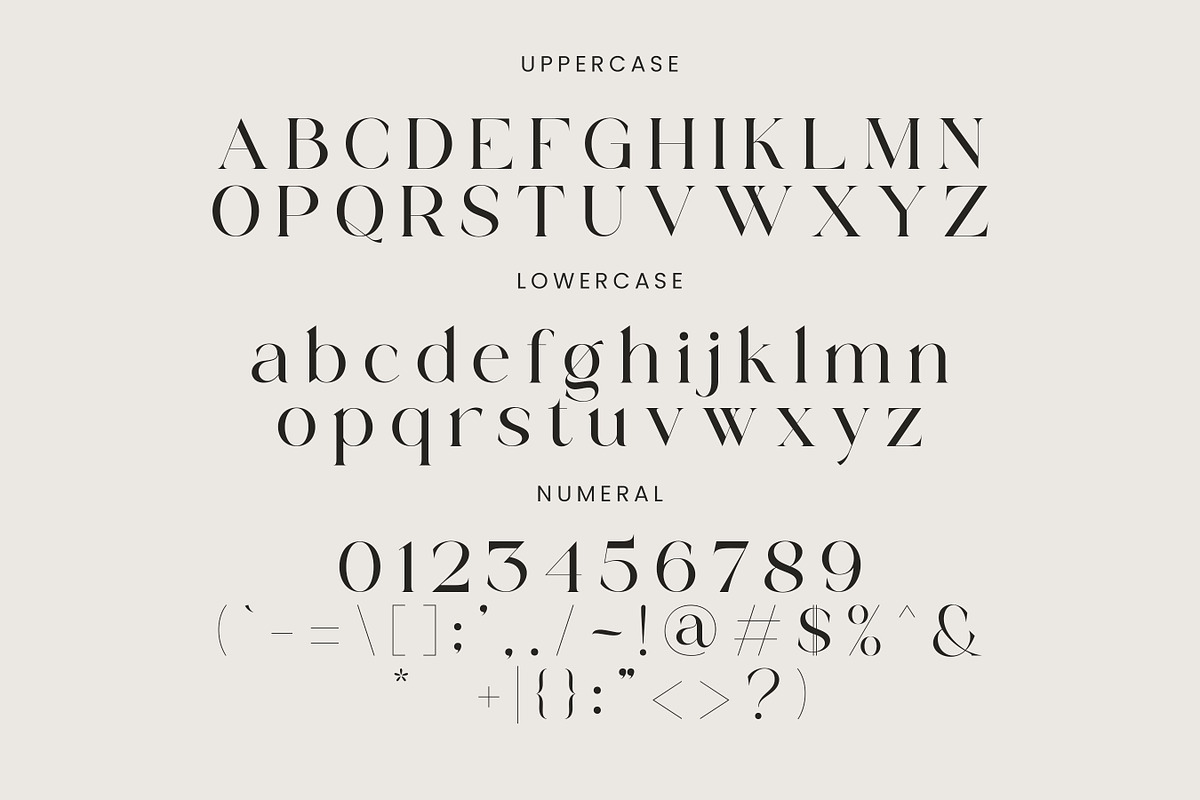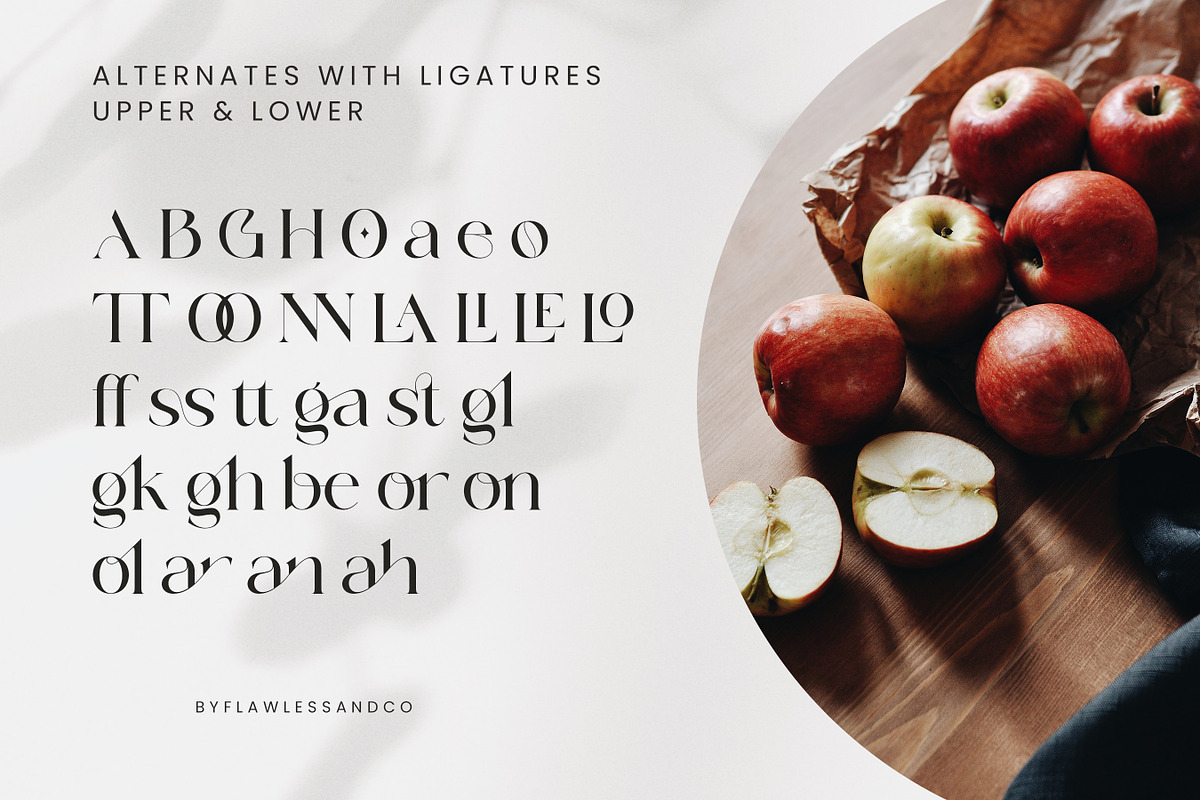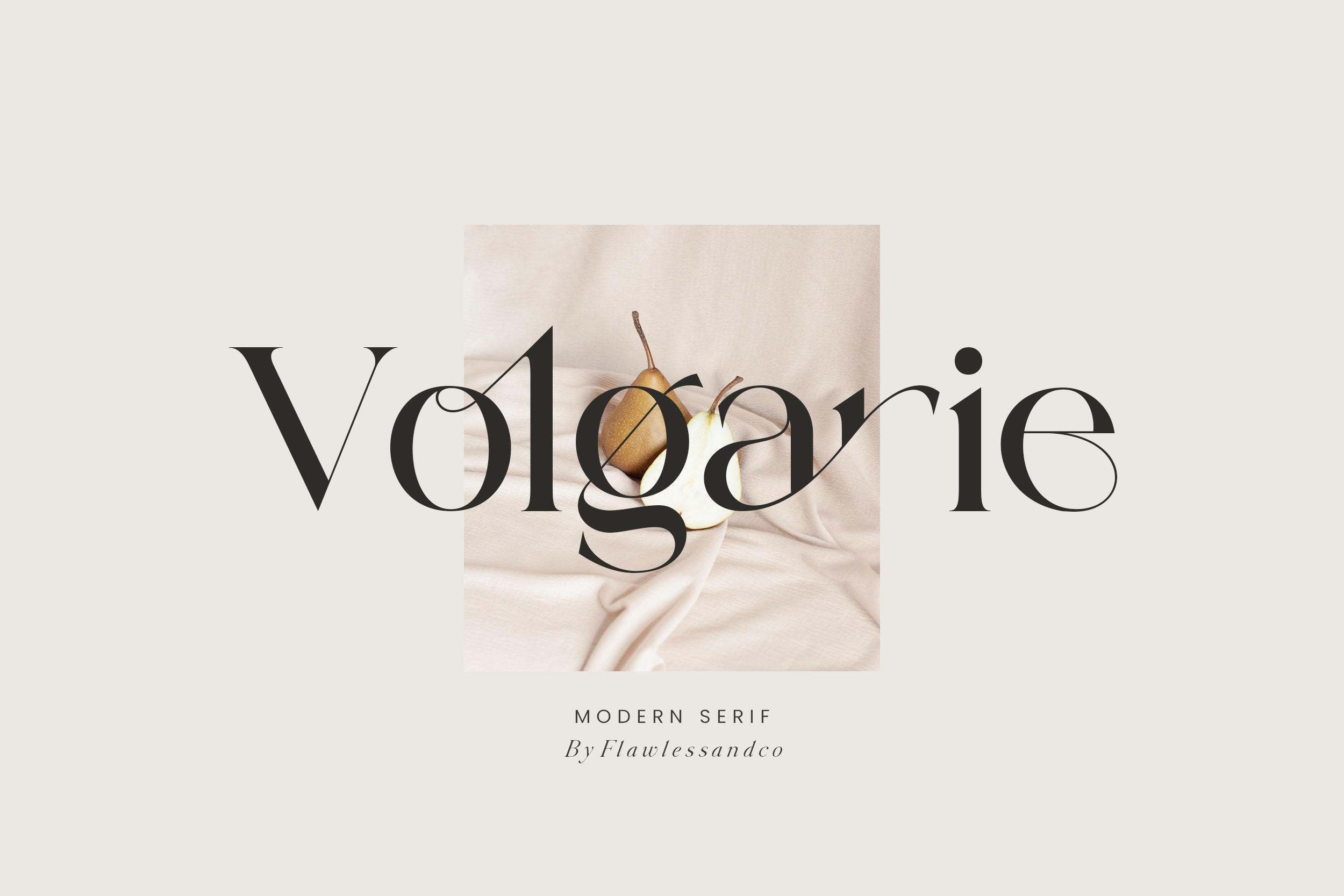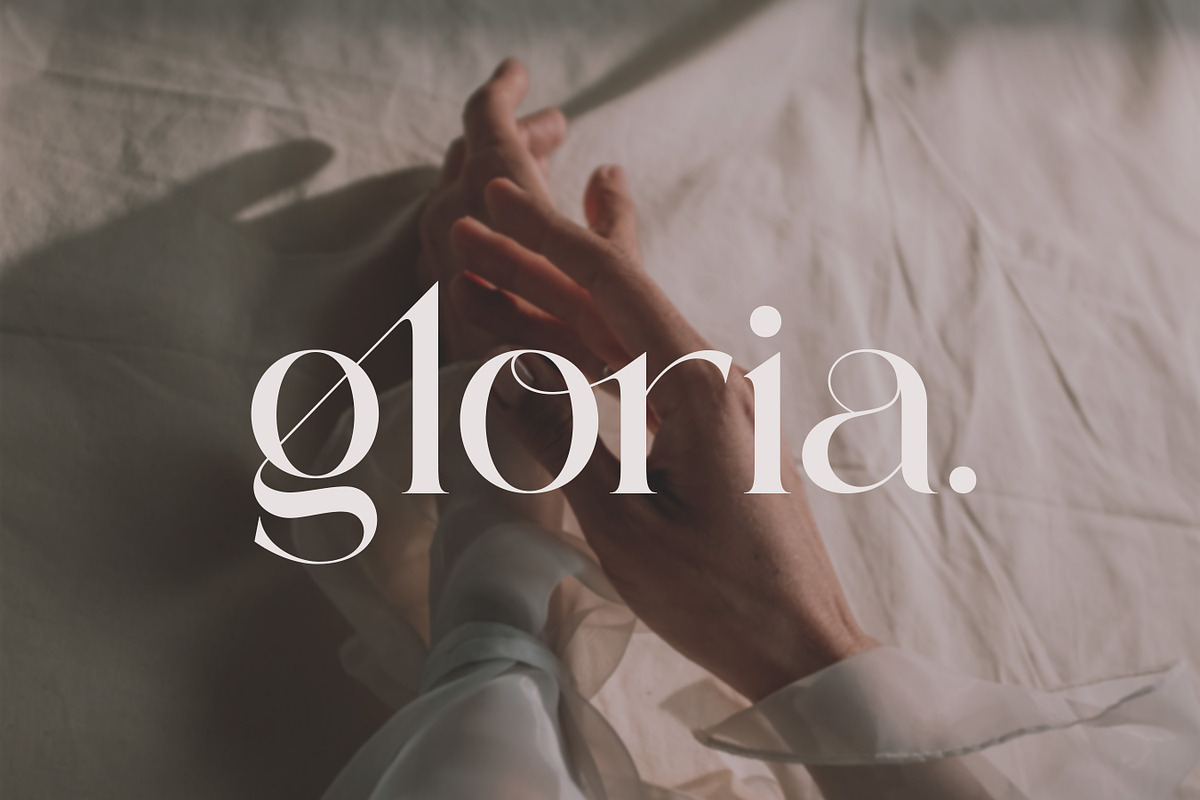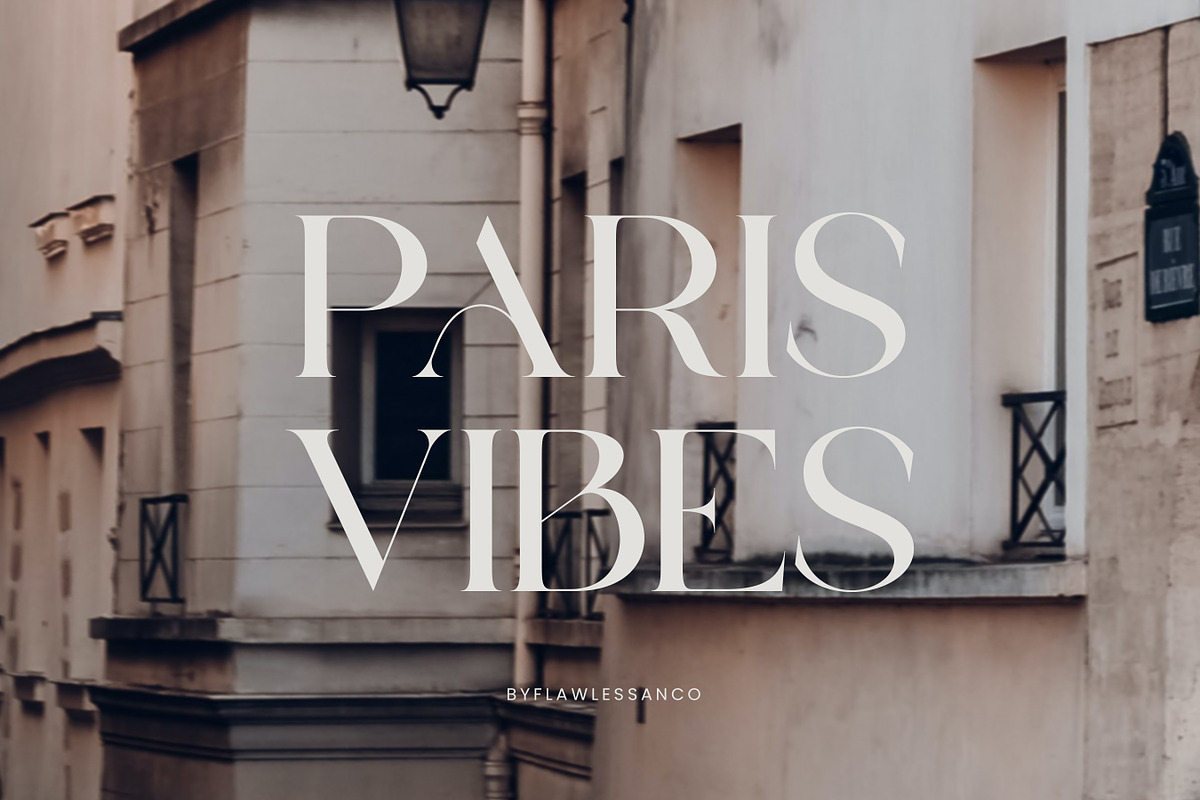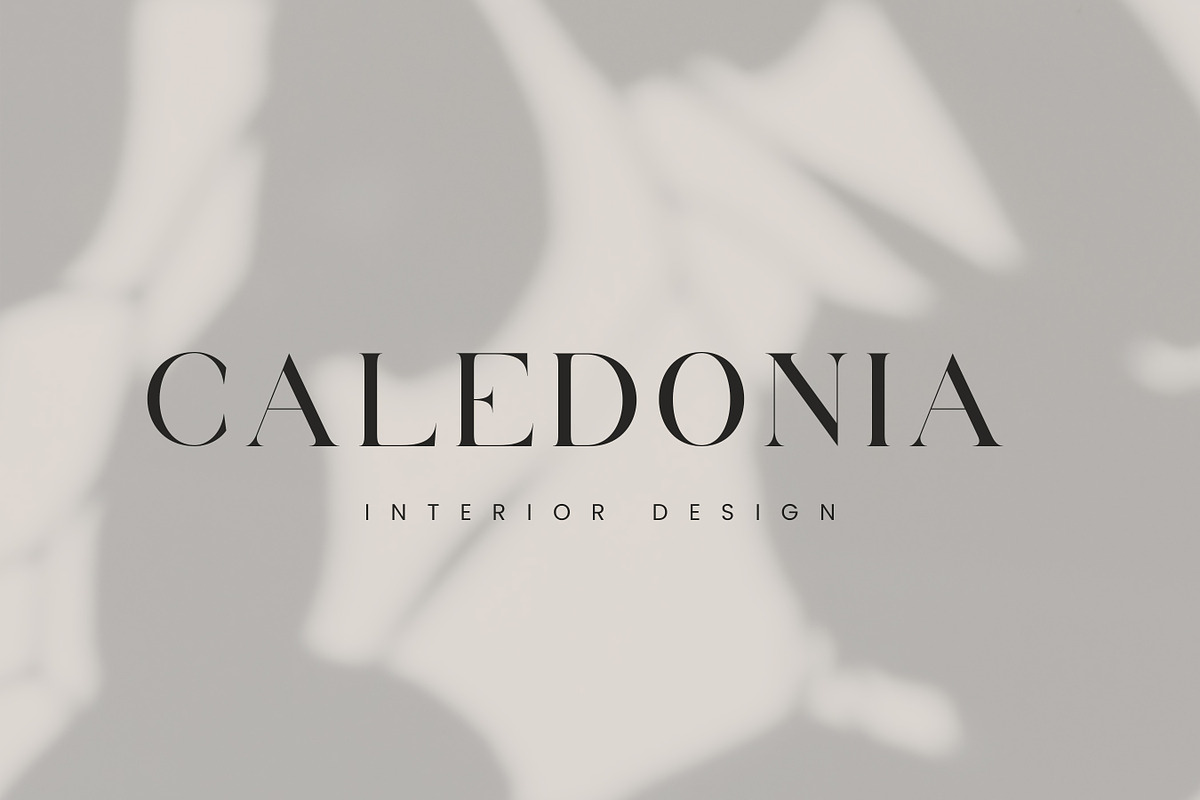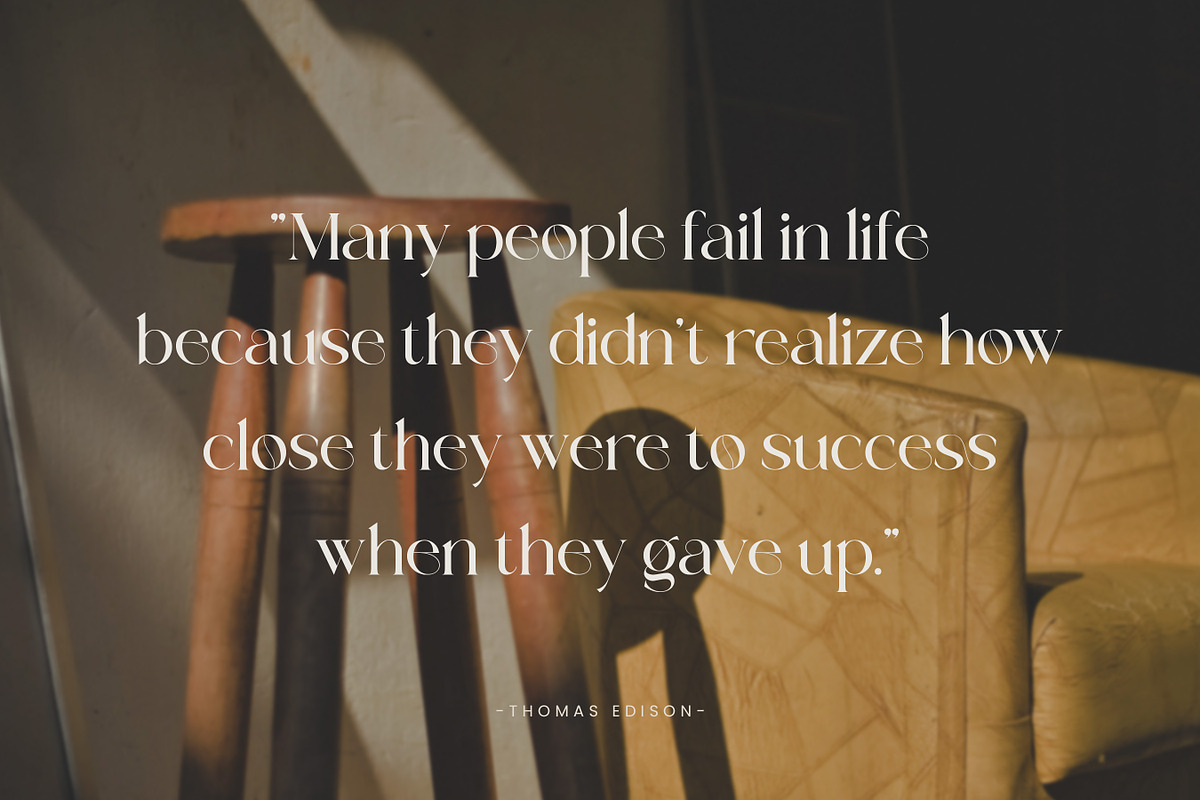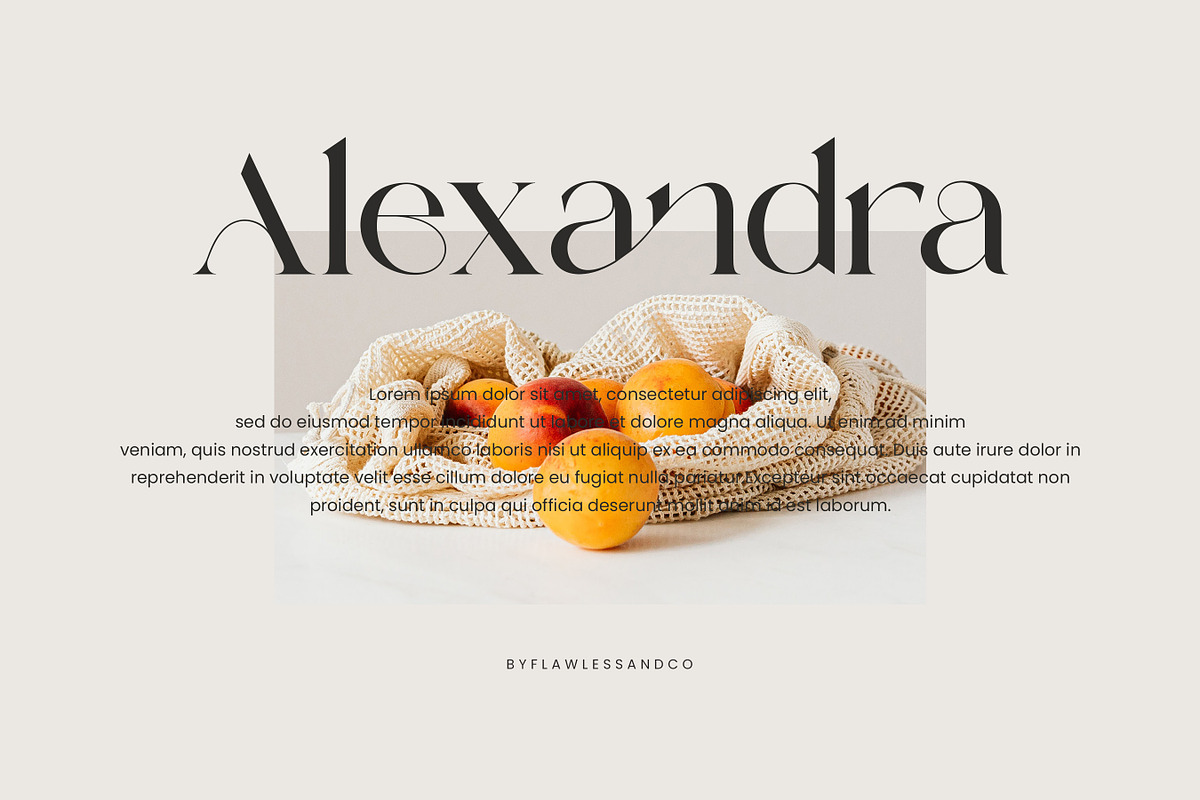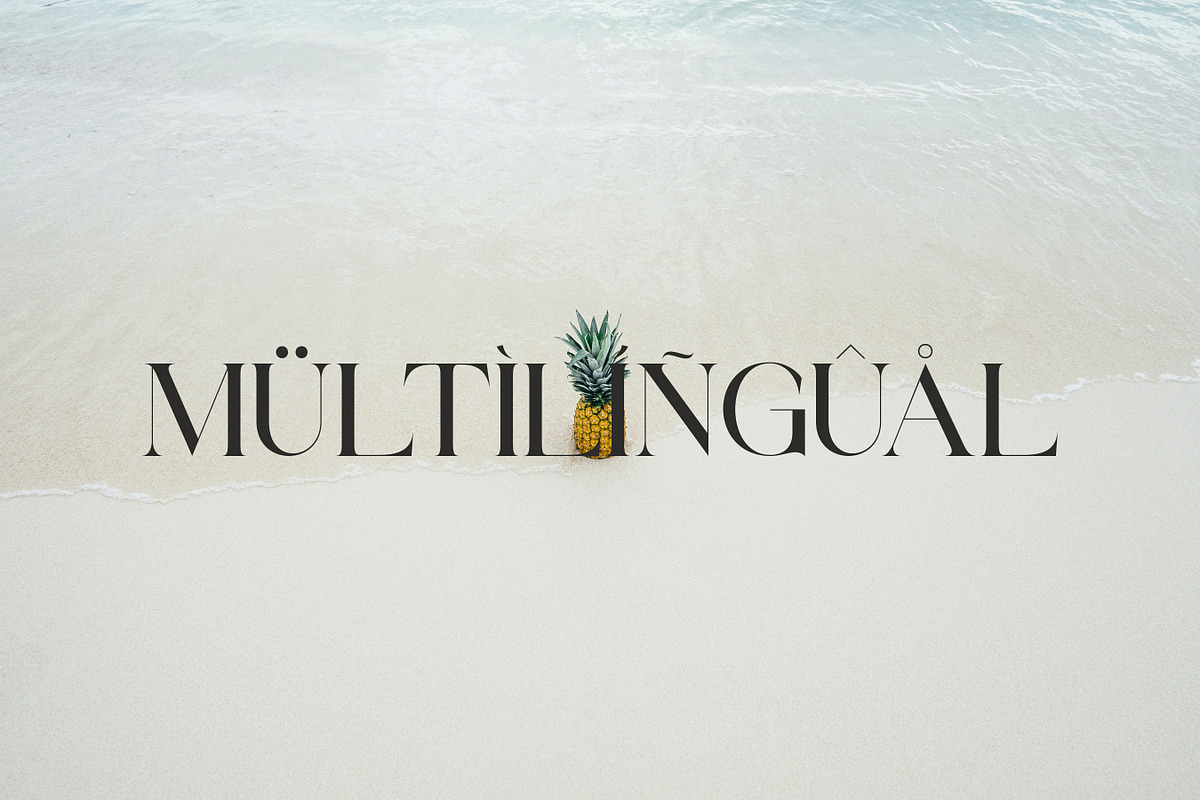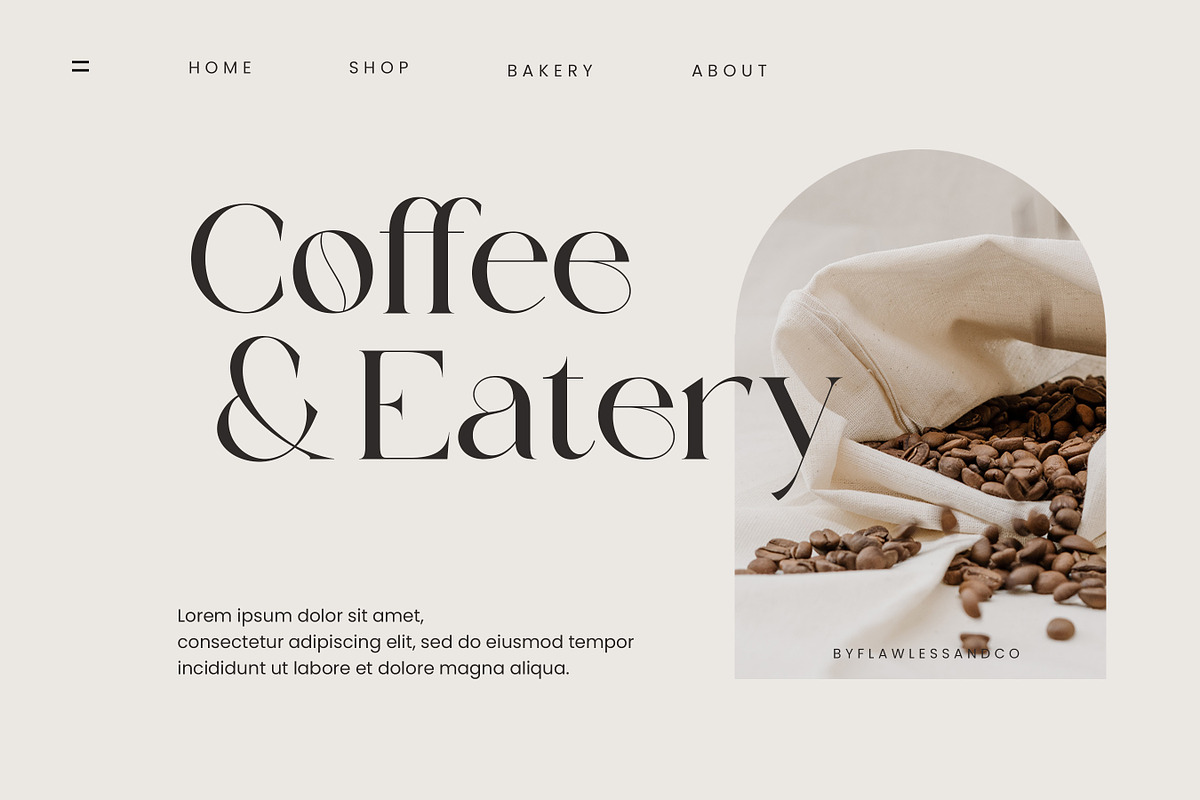
Volgarie - Modern Serif Font
introducing our new Volgarie Font, Modern Font with Elegant Style is perfect for branding, logos, invitation, master heads, and more.
Multilingual Uppercase alphabet A-Z Lowercase alphabet a-z Alternate Character Numbers 0-9 Some punctuation